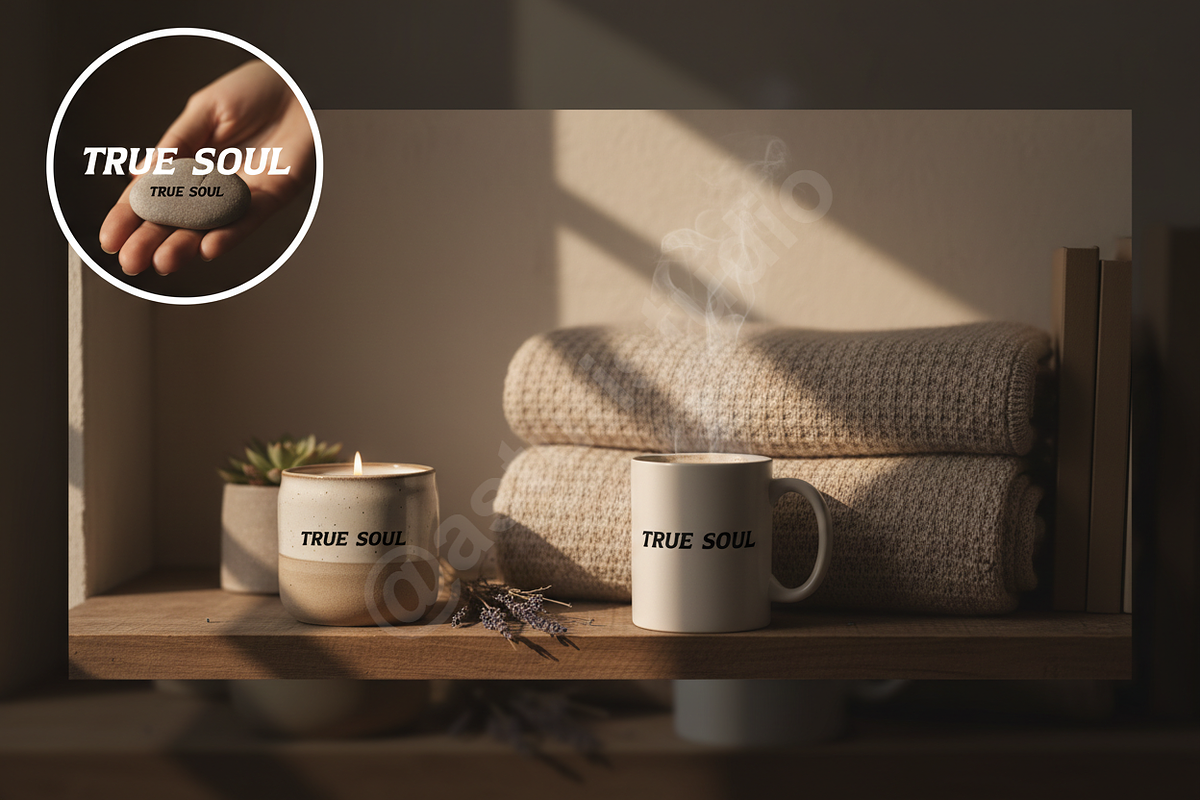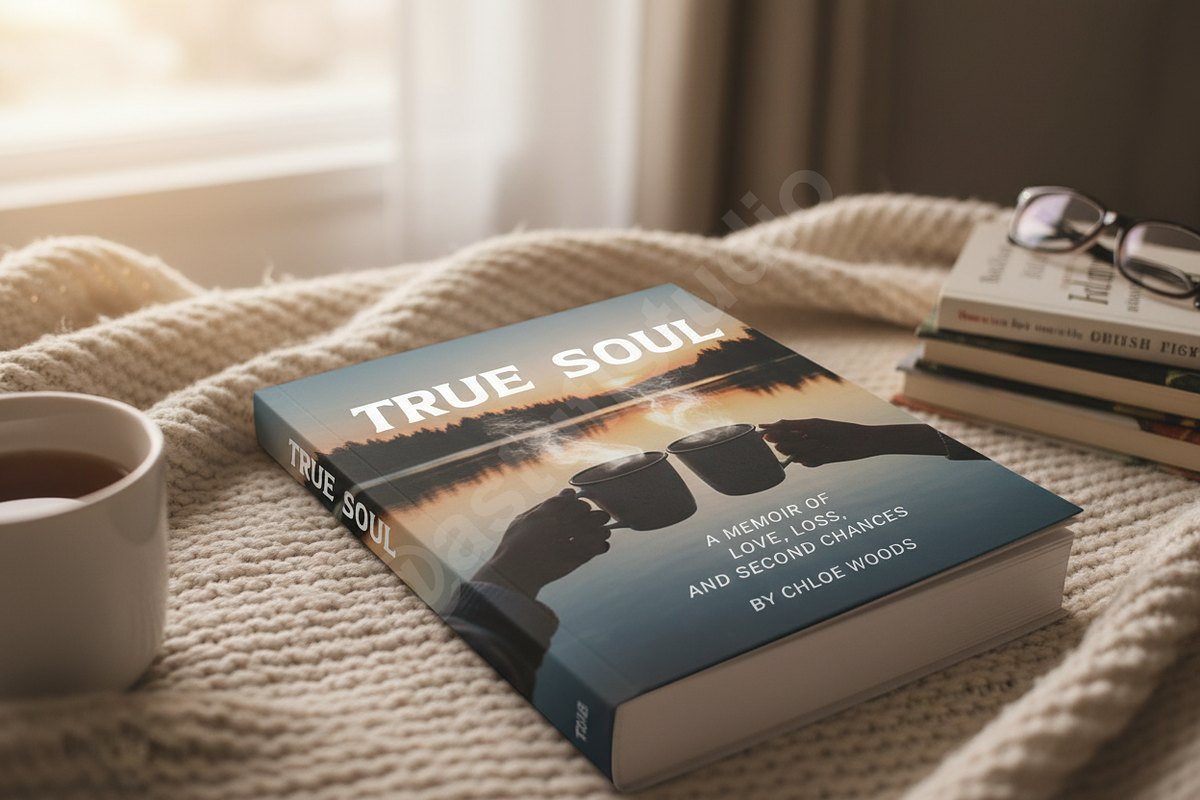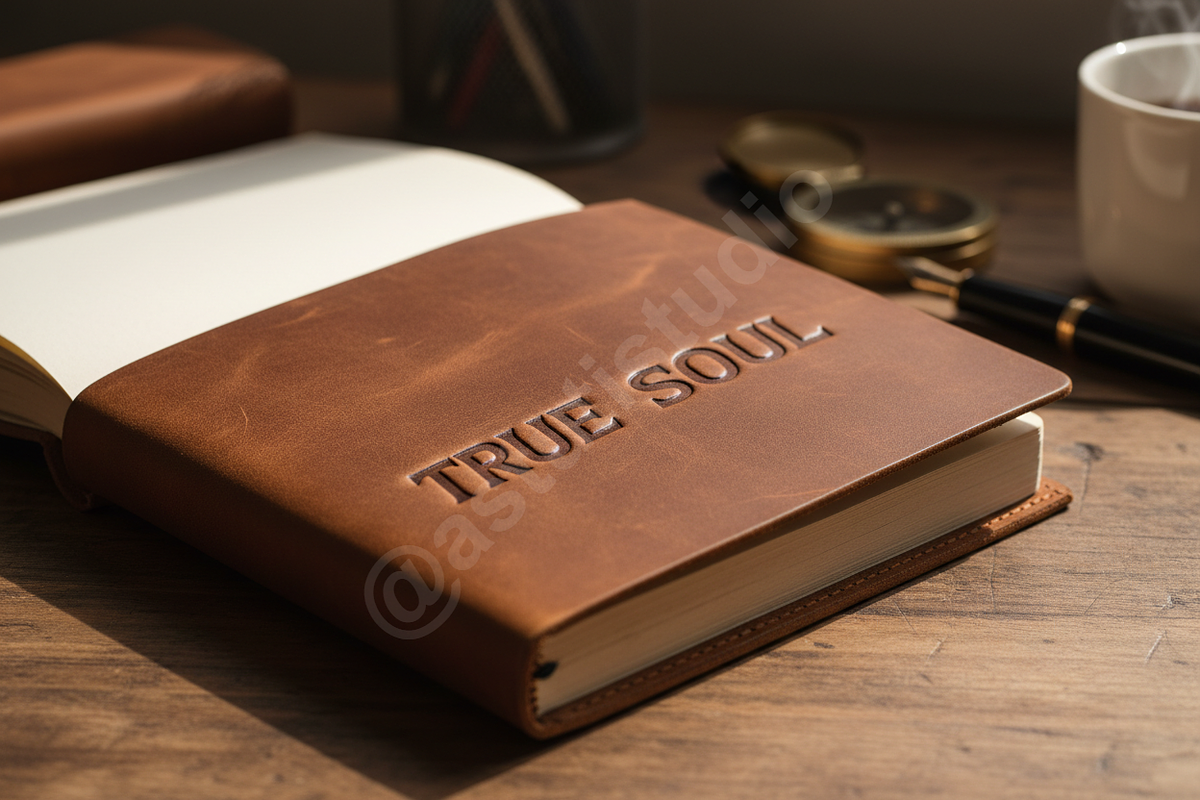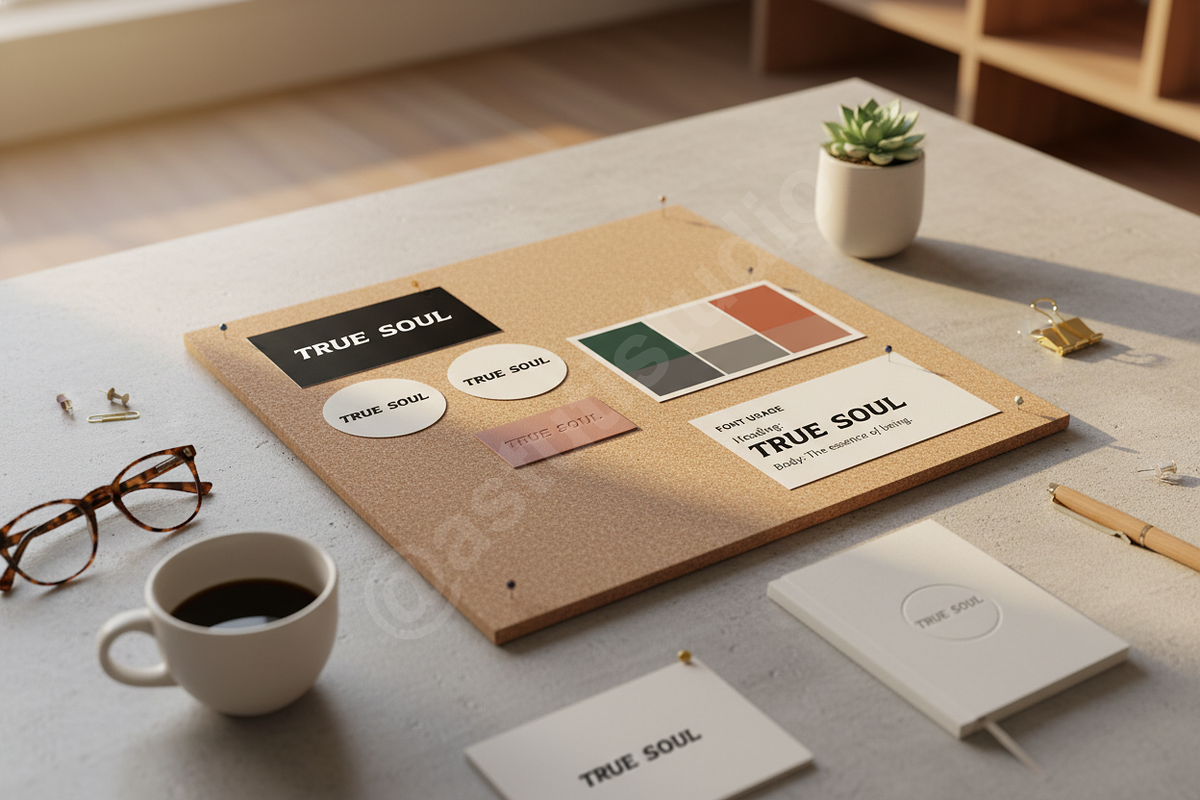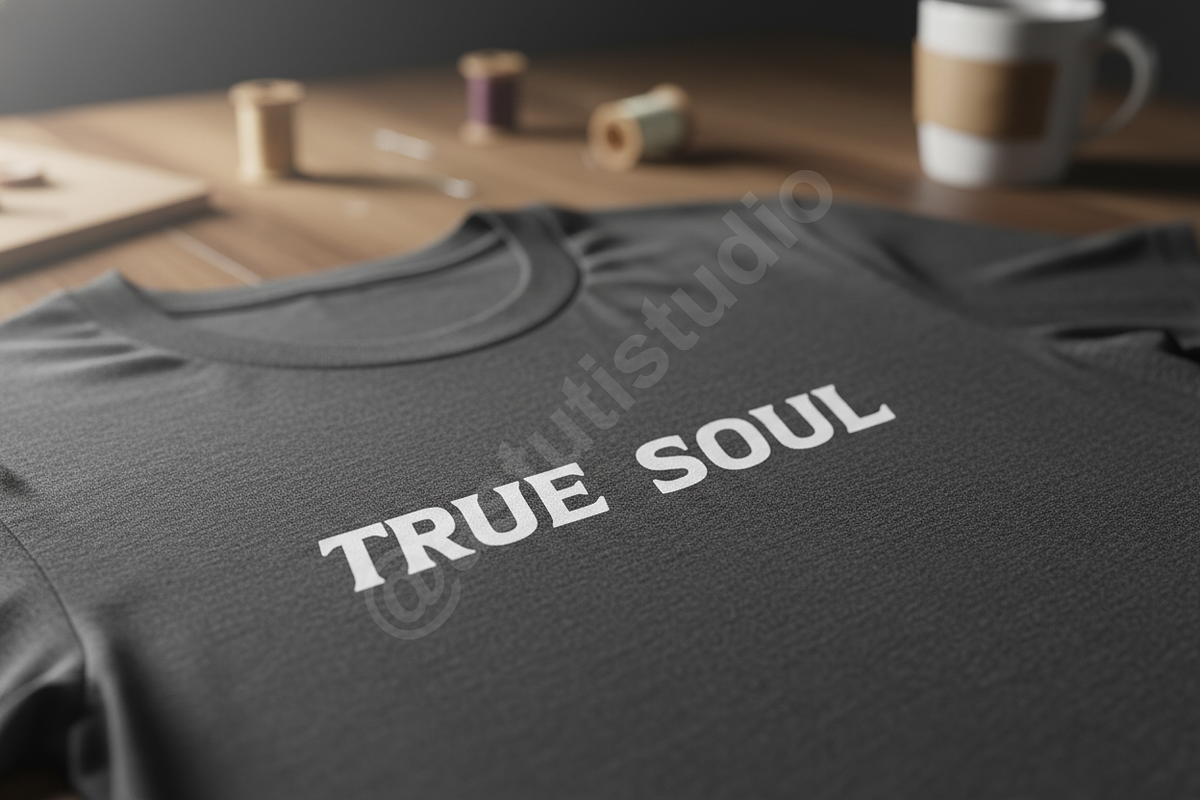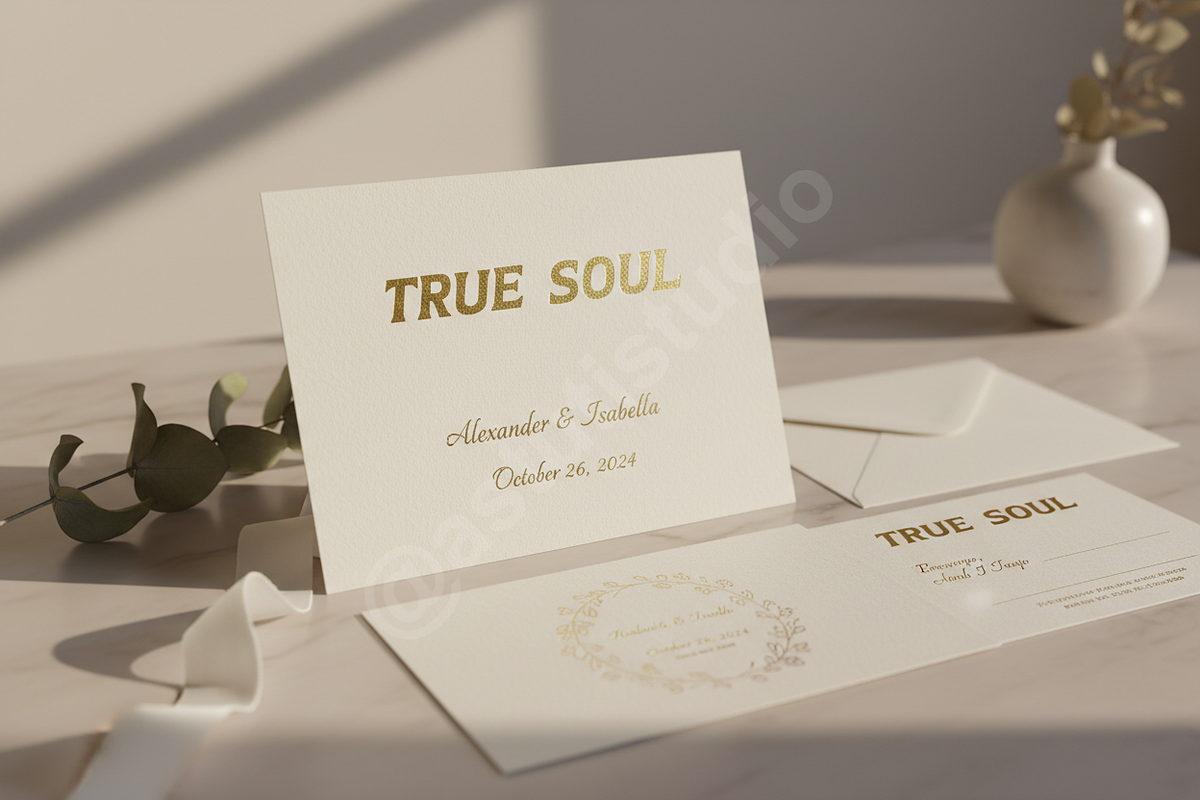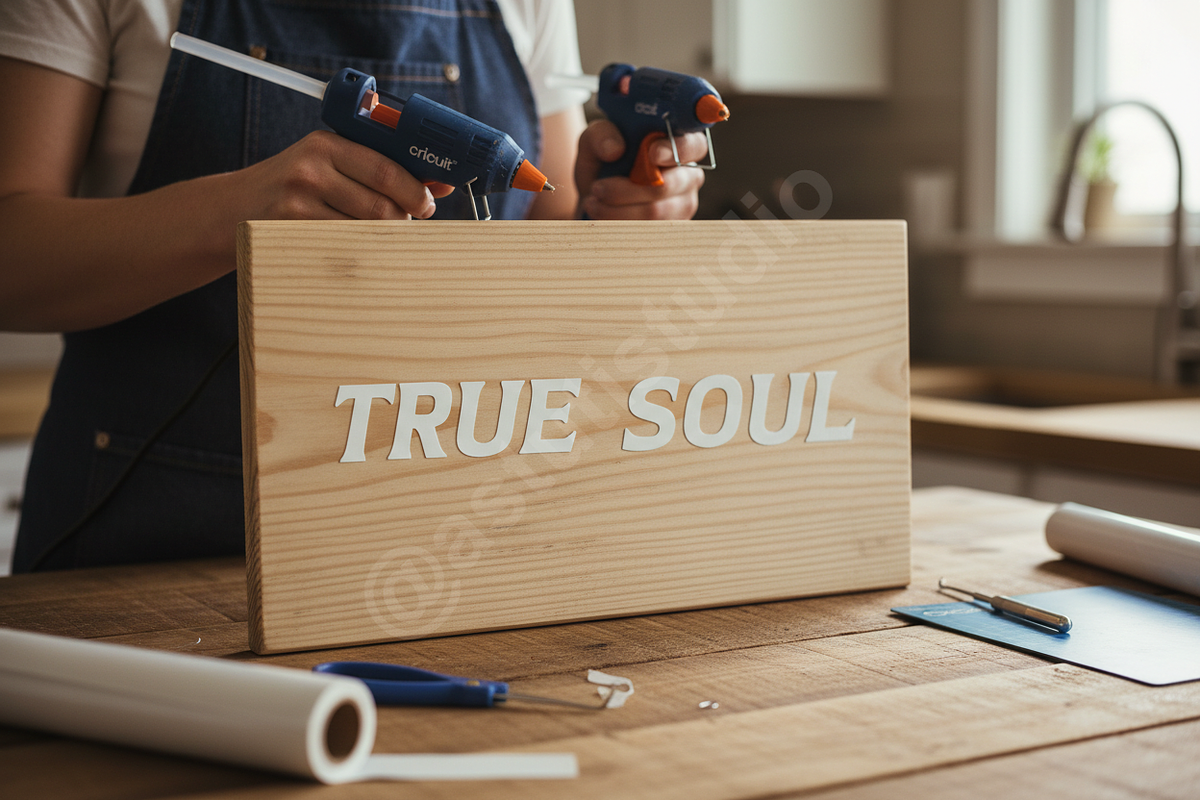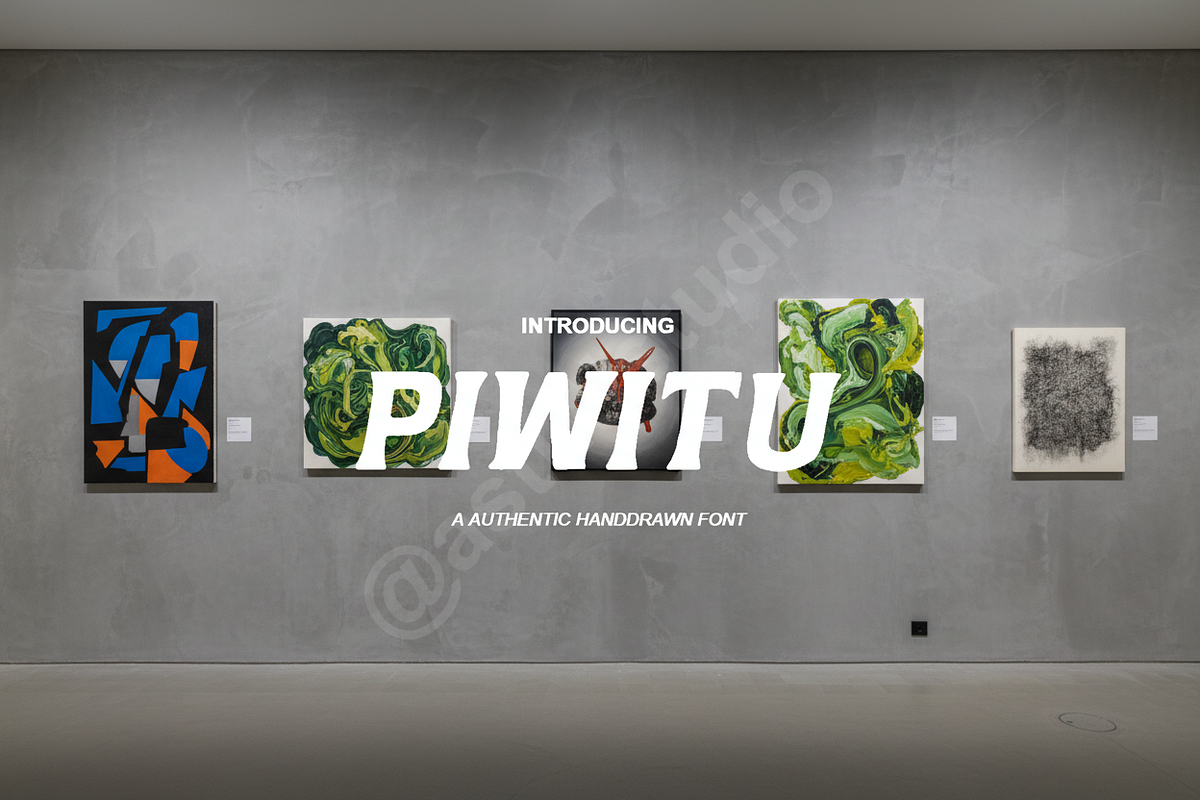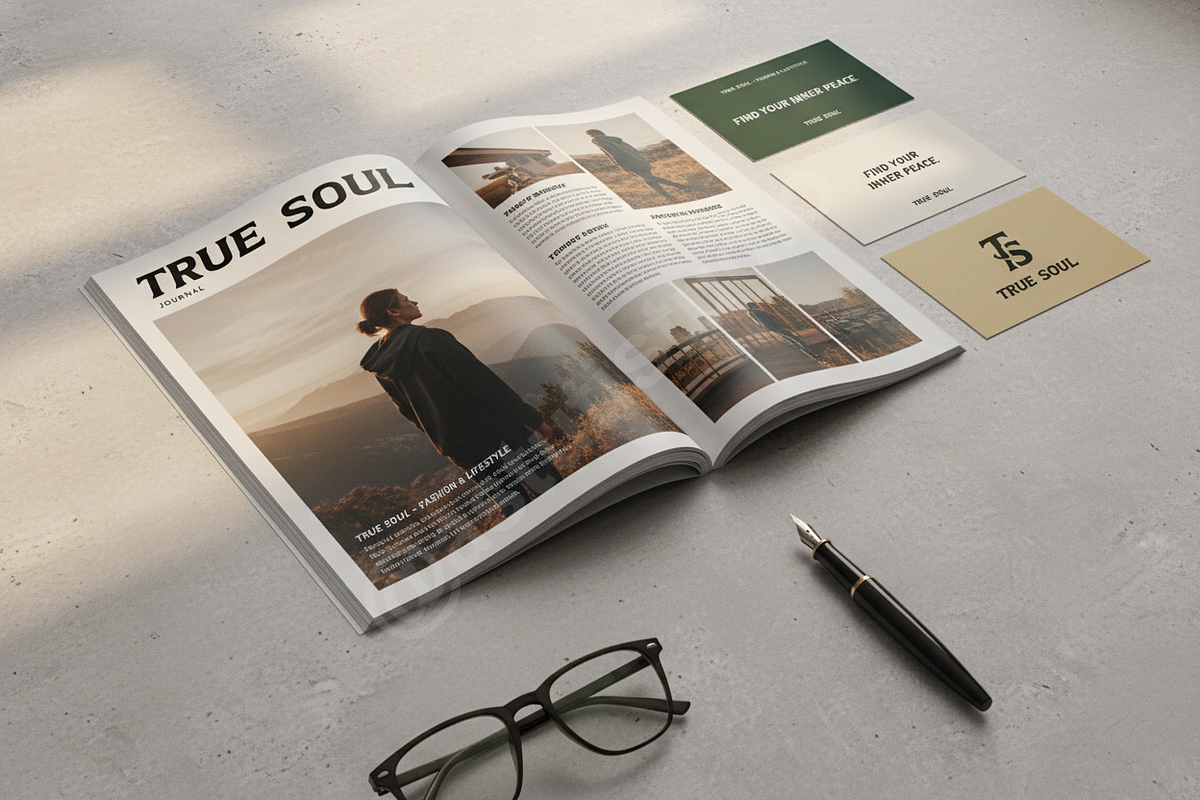
Piwitu - Modern Elegant Serif Typefa
Piwitu is a refined serif typeface meticulously crafted for high-end aesthetics. Merging timeless elegance with a contemporary edge, this font is the definitive choice for designers working in luxury branding, editorial layouts, and sophisticated social media content. Its balanced proportions and graceful curves ensure a premium feel across both digital and print mediums.
- Sophisticated and modern serif design
- Extensive OpenType features including unique ligatures and alternates
- Full multilingual character support for global reach
- Optimized kerning for professional-grade legibility
- Versatile application for headlines, logos, and body text